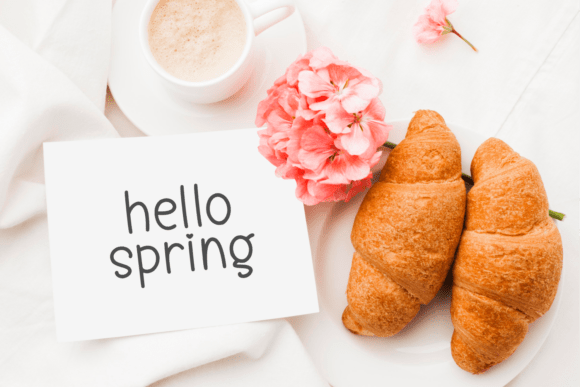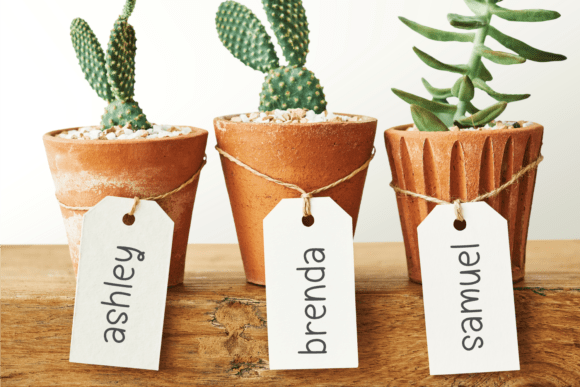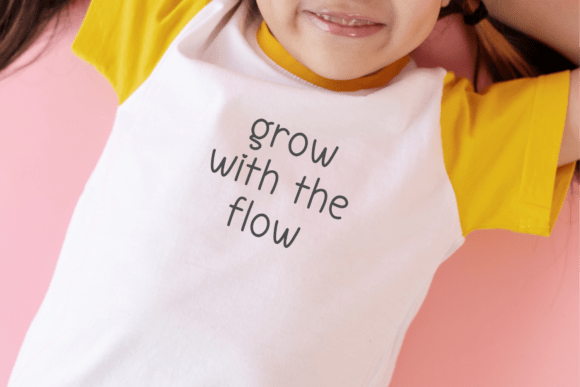
Spring Flowery Font
Introducing Spring Flowery, a whimsical handwritten font that bubbles with happiness and charm. Lively strokes and fanciful curves define this typeface, releasing an infectious dose of enthusiasm into your design repertoire. Perfect for brand logos, heartfelt greeting cards, unique hang tags, expressive t-shirts, and attention-grabbing posters, Spring Flowery is the secret ingredient that captivates and enthralls. It is the quintessential choice for spring-themed projects, reflecting verdant optimism and vibrant energy. Transform your creative endeavors with its inherent warmth and joy and watch as Spring Flowery breathes vivacious life into your masterpiece.